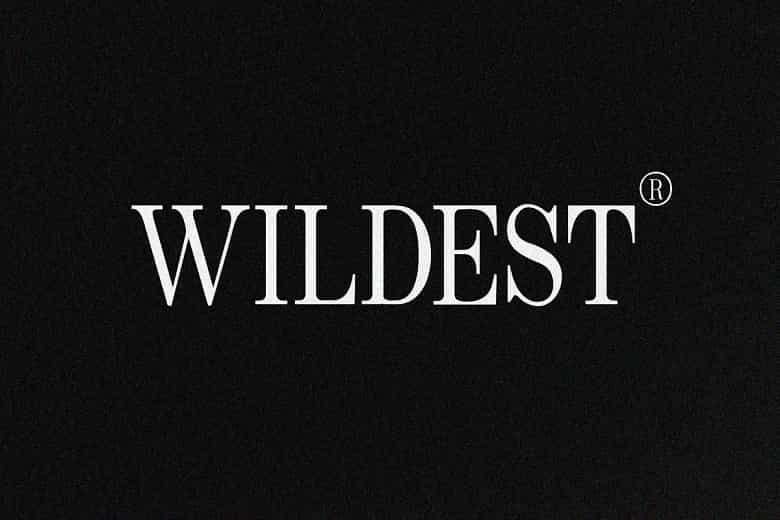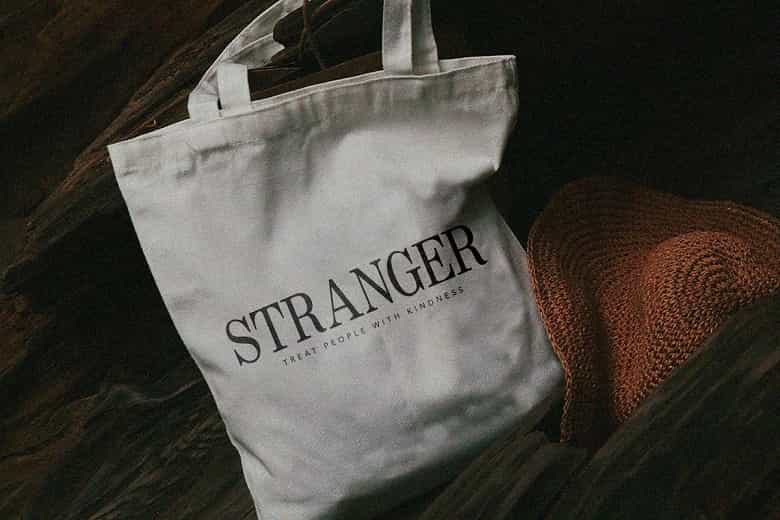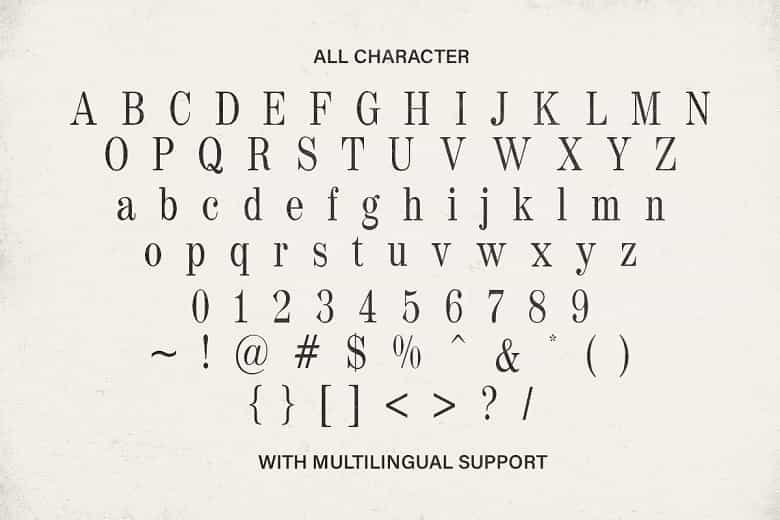
Wildest is a simple and a basic serif font. Due to its casual look and the refined details it offers, it is perfect for a broad variety of uses. It can really enhance the look of your projects so include it confidently in your work and see the results!